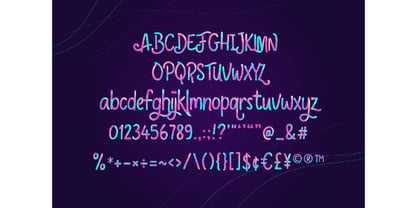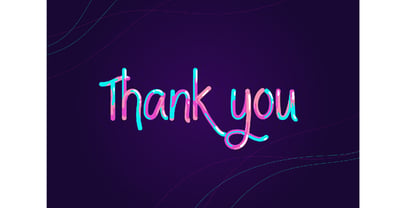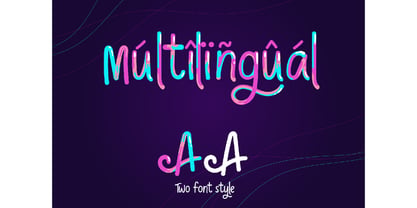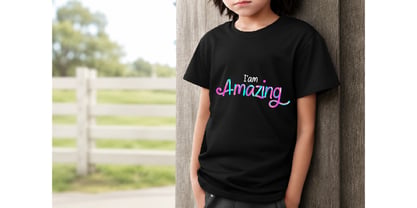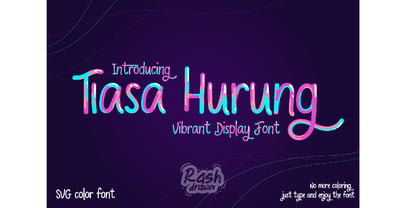
Tiasa Hurung
von Rashdrawn
Die Schriftfamilie Tiasa Hurung wurde von Dadan Wildan entworfen und von Rashdrawn veröffentlicht. Tiasa Hurung enthält 2 Stile und Familienpaketoptionen. Mehr über diese Familie
Tiasa Hurung – Playful Color Font
Tiasa Hurung is a vibrant and cheerful color font designed to bring energy, fun, and personality to your creative projects. Featuring a unique hand-lettered style with colorful neon-inspired strokes, this font instantly grabs attention and adds a playful touch to any design.
Perfect for children's products, branding, social media graphics, posters, invitations, t-shirts, stickers, packaging, quotes, and creative display projects.
With its lively color combination and handcrafted appearance, Tiasa Hurung helps your designs stand out effortlessly—just type and enjoy the colorful result.
• Color Font
• Handwritten Display Style
• Multilingual Support
• Uppercase & Lowercase Characters
• Numbers & Punctuation
• Fun and Playful Look
• Perfect for Digital & Print Projects
• Kids Branding
• T-Shirt Designs
• Posters & Flyers
• Social Media Content
• Product Packaging
• Greeting Cards
• Stickers
• YouTube Thumbnails
• Craft Projects
• Creative Quotes
Bring a burst of color and happiness to your designs with Tiasa Hurung!
Designer: Dadan Wildan
Foundry: Rashdrawn